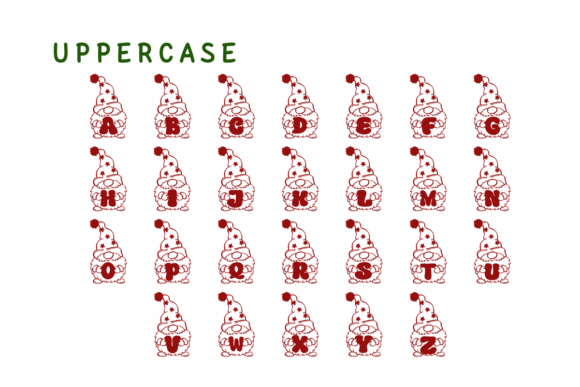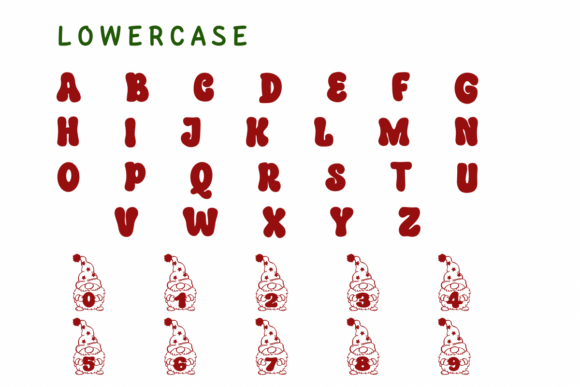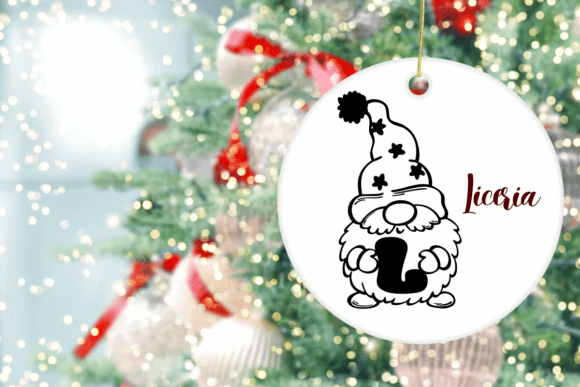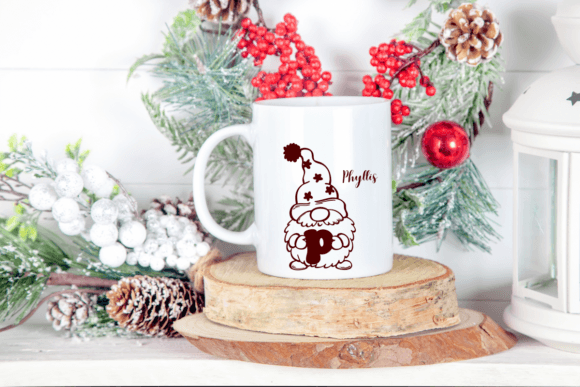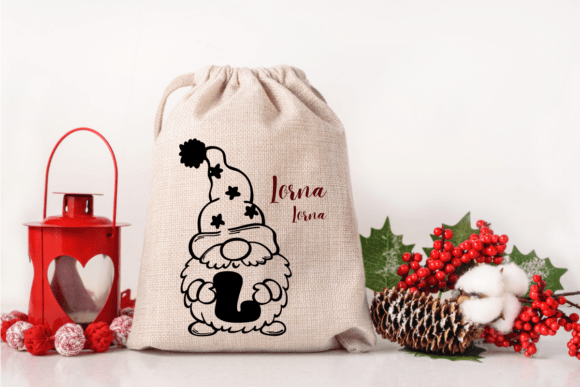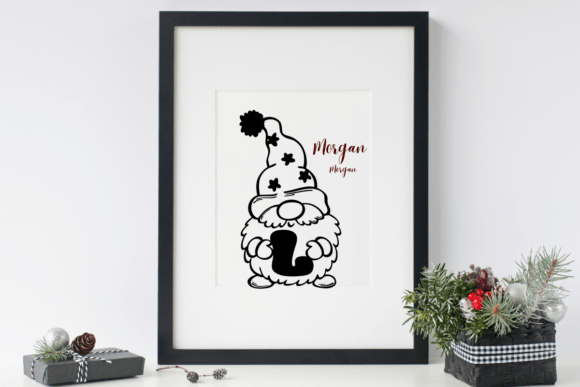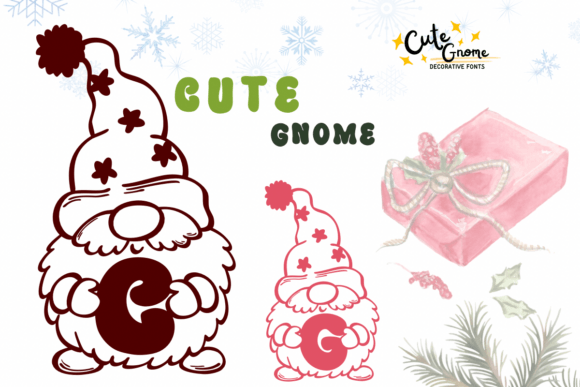
Cute Gnome Font: Add a Whimsical Touch to Your Designs
Are you looking for a unique and playful font to add a touch of whimsy to your designs? Look no further than the Cute Gnome Font! This fun and decorative font features adorable gnomes holding up each letter, making it perfect for crafters, designers, and anyone looking to add a dash of personality to their work.
What is Cute Gnome Font?
Cute Gnome Font is a digital font that showcases a delightful collection of gnomes, each one holding up a letter of the alphabet. The font is designed to be playful, charming, and eye-catching, making it ideal for a variety of design projects, from greeting cards and invitations to posters, stickers, and more.
Key Features of Cute Gnome Font
- Unique and Playful Design: Each letter of the alphabet is held up by a cheerful gnome, making this font truly one-of-a-kind.
- Whimsical and Charming: The Cute Gnome Font is perfect for adding a touch of magic and wonder to your designs.
- High-Quality Digital Font: This font is designed to be clear and legible, even at small sizes.
Uses for Cute Gnome Font
The Cute Gnome Font is versatile and can be used in a variety of design projects, including:
- Greeting Cards and Invitations: Add a personal touch to your cards and invites with this charming font.
- Posters and Flyers: Use the Cute Gnome Font to create eye-catching posters and flyers for events, promotions, and more.
- Stickers and Labels: This font is perfect for creating fun and colorful stickers and labels for gifts, packages, and more.
- Digital Art and Illustrations: Incorporate the Cute Gnome Font into your digital art and illustrations for a unique and playful touch.
Why Choose Cute Gnome Font?
With so many fonts available, why choose Cute Gnome Font? Here are just a few reasons:
- Unique and Exclusive: This font is sure to set your designs apart from the crowd.
- Easy to Read: Despite its playful design, the Cute Gnome Font is clear and legible, even at small sizes.
- Fun and Whimsical: This font is sure to bring a smile to your face and add a touch of personality to your designs.
Tips for Using Cute Gnome Font
Here are a few tips for getting the most out of the Cute Gnome Font:
- Use it Sparingly: While the Cute Gnome Font is playful and fun, it can be overwhelming if used too much. Use it sparingly to add a touch of whimsy to your designs.
- Experiment with Colors: The Cute Gnome Font looks great in a variety of colors, so don’t be afraid to experiment and find the perfect hue for your design.
- Pair it with Other Fonts: Try pairing the Cute Gnome Font with other fonts to create a unique and eye-catching design.